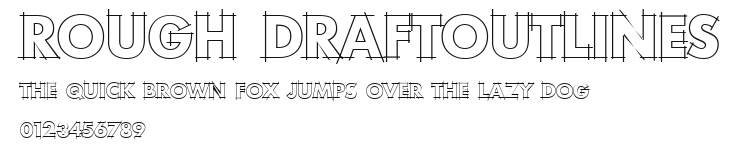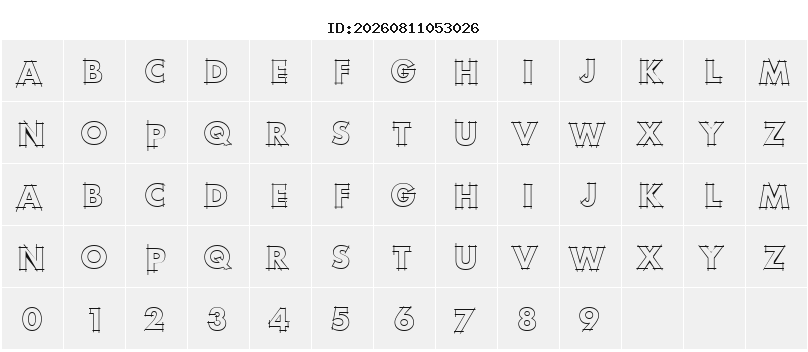
• Font Name: Rough DraftOutlines
• Full Font Name: Rough DraftOutlines
About Rough DraftOutlines.ttf
Rough DraftOutlines.ttf is a modern, elegant sans-serif font designed for ultimate readability and visual harmony. Perfect for branding, headlines, web design, and print materials.